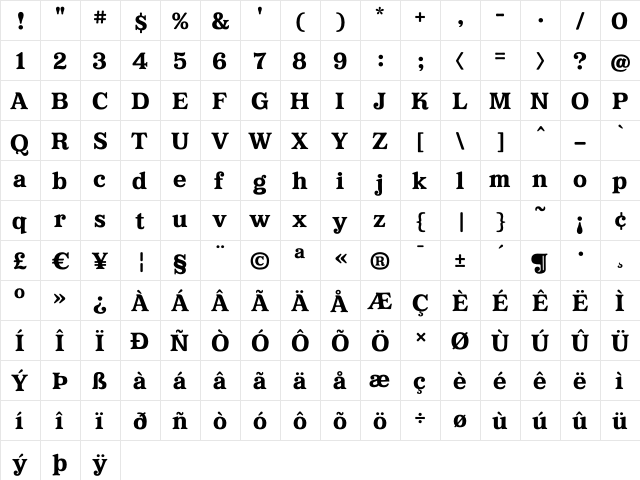
Everafter Bold
| Foundry | Dilworth Typographics Inc |
| Designer | Silas Dilworth |
Design Context for Everafter Typeface
Everafter is a composed and adaptable typeface that performs quietly and consistently across a wide range of design contexts. The heavy weight commands attention and anchors typographic hierarchies.
Pro Tip: Pair Everafter with a font of contrasting weight or personality to build a more expressive typographic hierarchy.